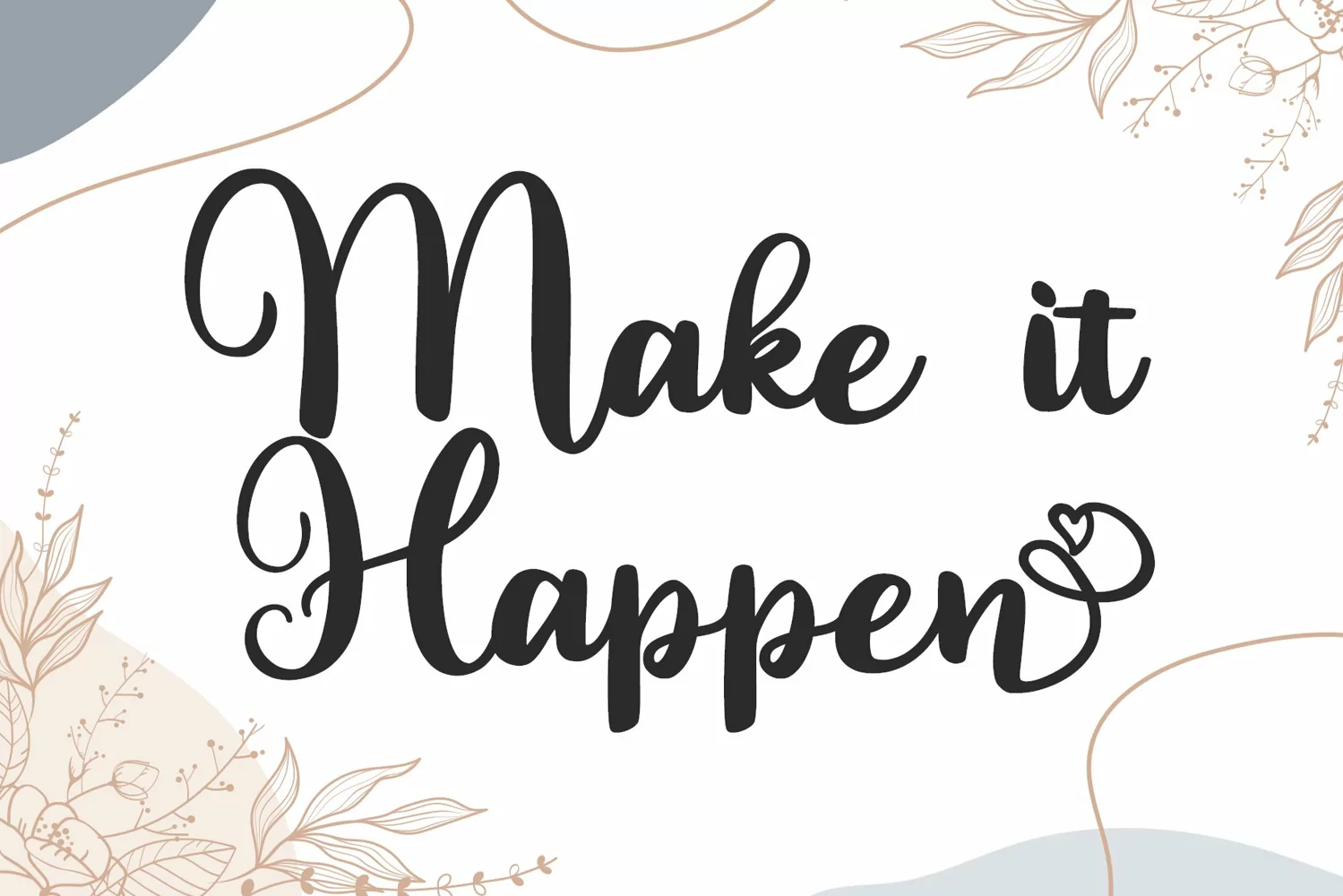
Proudly presents our font Harmony.
Harmony is mazing hand lettering look attractive and natural!
Every single letters have been carefully crafted to make your text looks beautiful.
This font includes 233 glyphs, including 26 alternates character.
It has over 60 extended Latin characters for language support.
Alternate Character
Ligature Character
Harmony